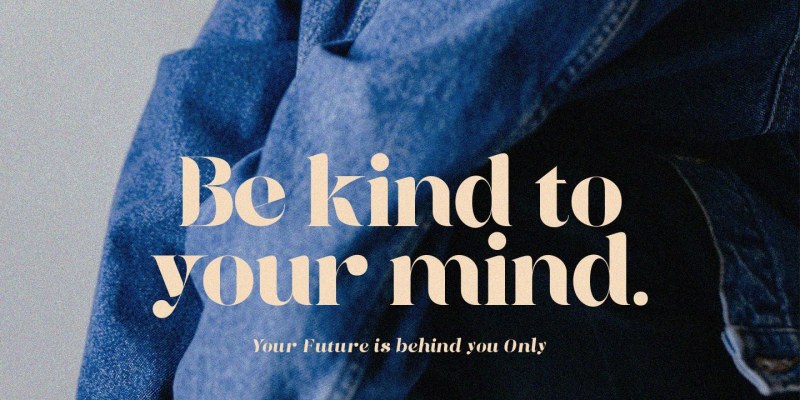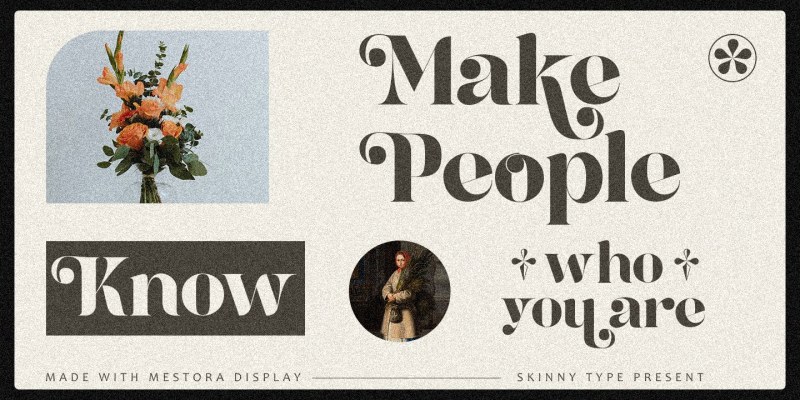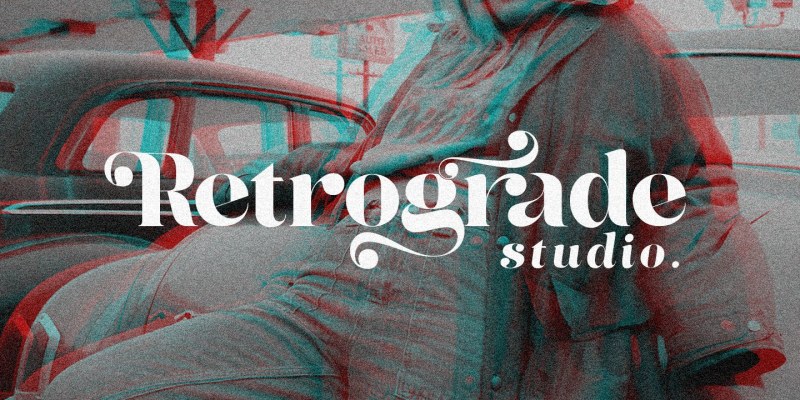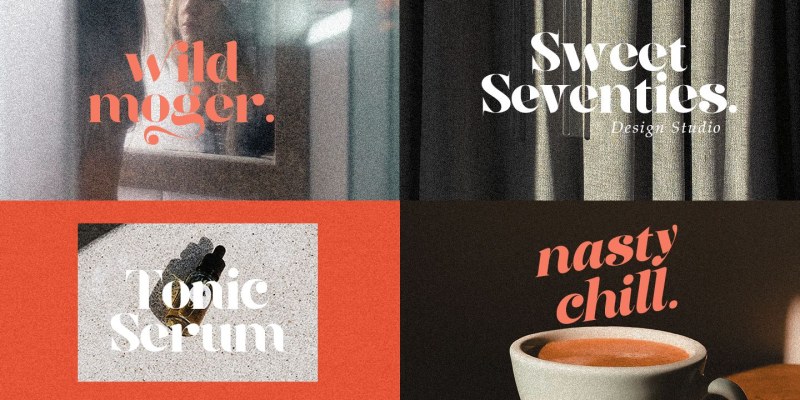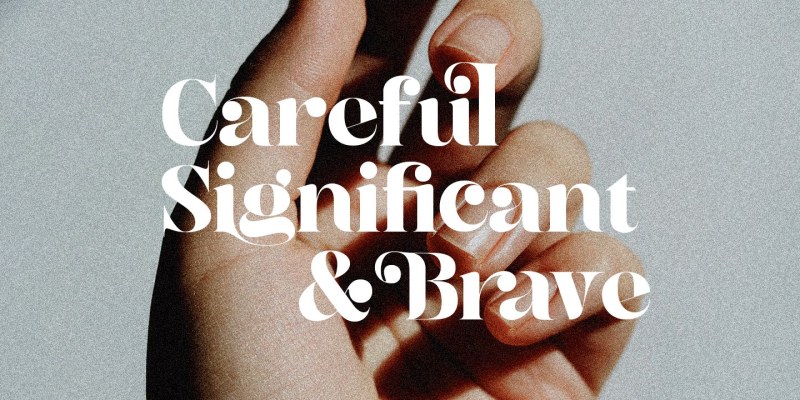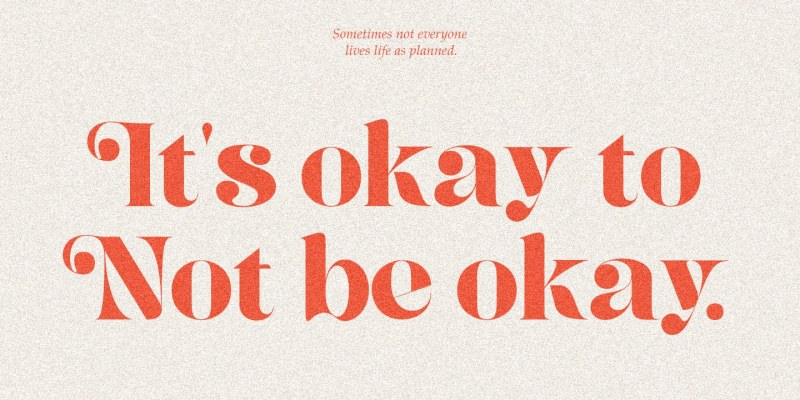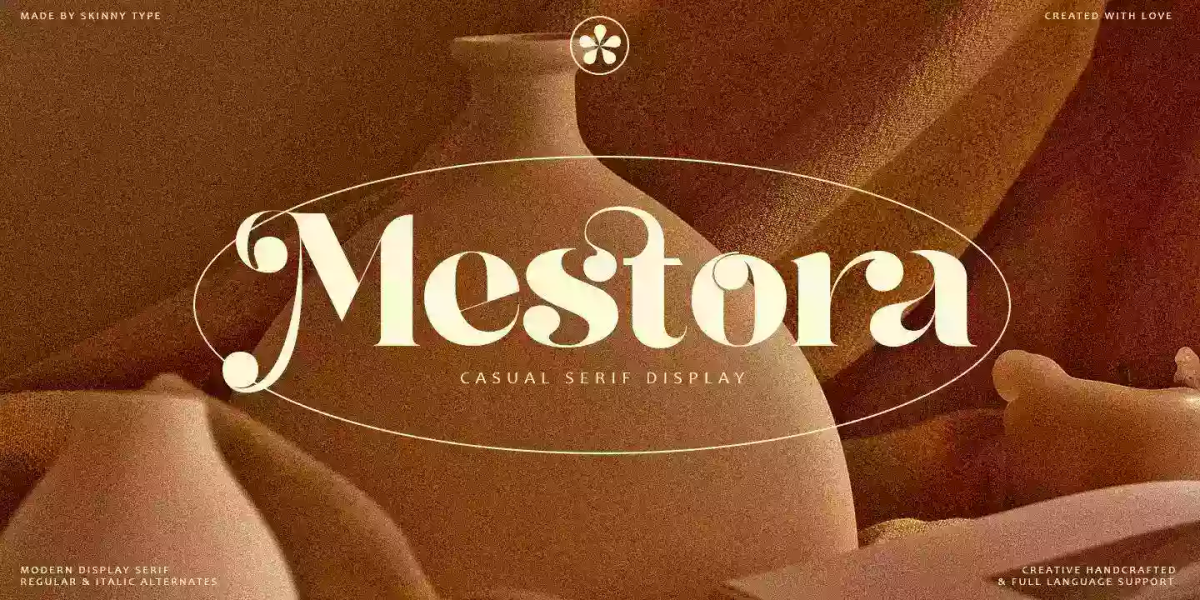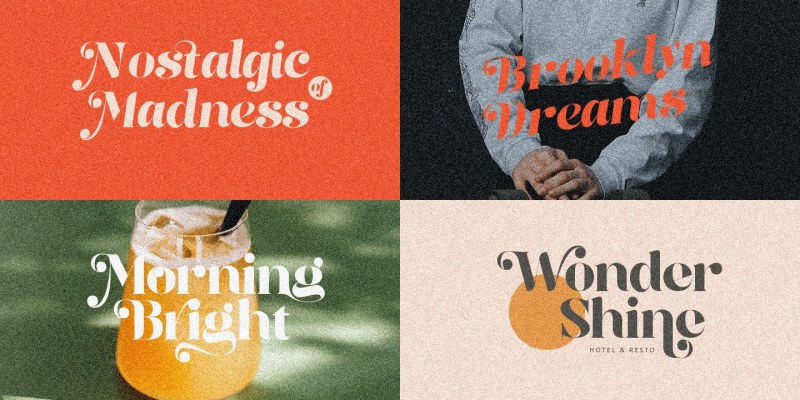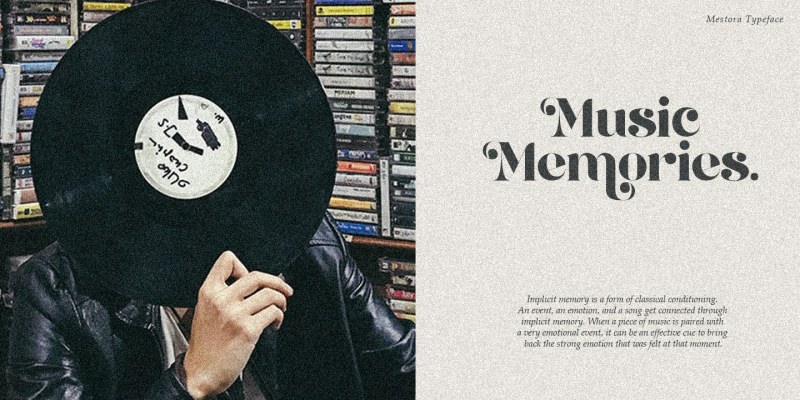
Mestora Font Family
Mestora is a classic and elegant retro serif with a modern twist. With its decent readability, Mestora is perfect for both display as well as body text.
Inspired by all the retro aesthetics making a comeback, Mestora is perfectly suitable for creating nostalgic yet still clean and elegant designs such as logos, packaging, editorial, and more.
Alternates Uppercase & Lowercase
Ligatures
Mestora Font Family is a Serif Fonts font that brings a professional and versatile look to your projects. Mestora is a classic and elegant retro serif with a modern twist.